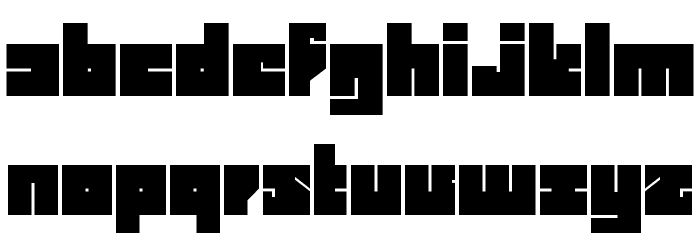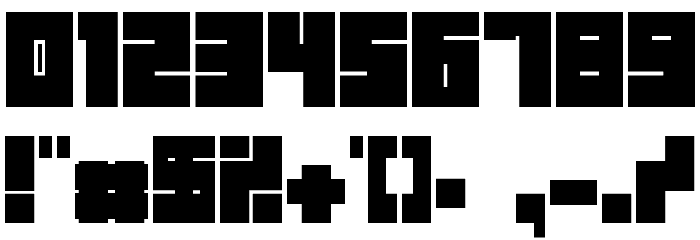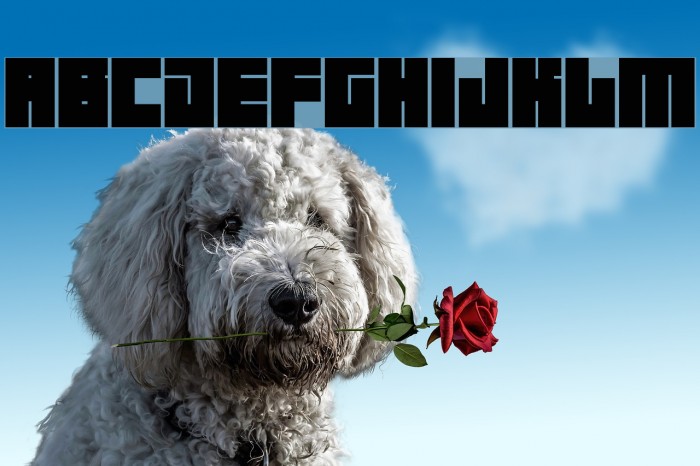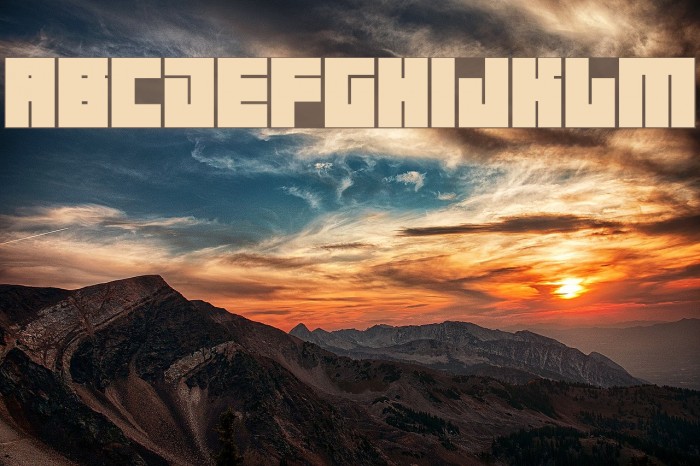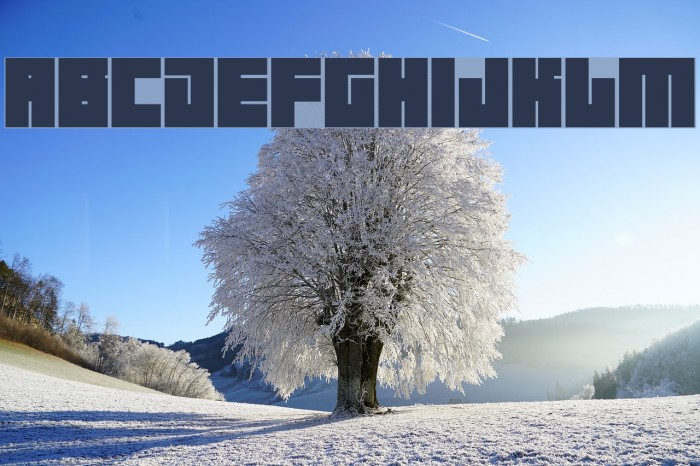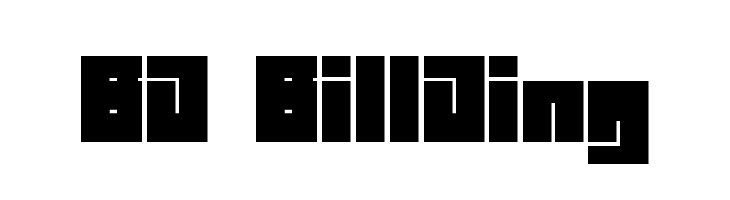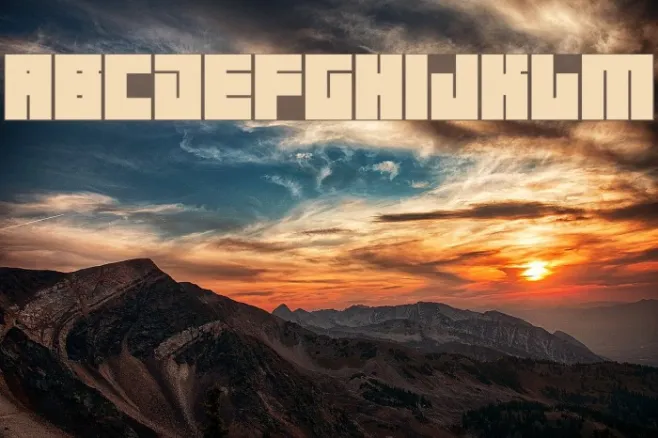
BD BillDing Font
This font features a bold and geometric design with a blocky, modular structure. Each character is constructed with a series of straight lines and right angles, giving it a distinctly mechanical and industrial feel. The uppercase and lowercase letters maintain a consistent width, creating a uniform appearance across the typeface. The numerals and special characters follow the same design principles, ensuring a cohesive look. The font's heavy weight and strong presence make it ideal for impactful headlines and attention-grabbing designs. Its unique style is reminiscent of digital or retro-futuristic aesthetics, making it suitable for projects that require a modern yet nostalgic touch.
A bold, geometric font with a blocky, industrial design.
- Proposed Projects: Ideal for posters, logos, video game graphics, and any design needing a strong, futuristic look.